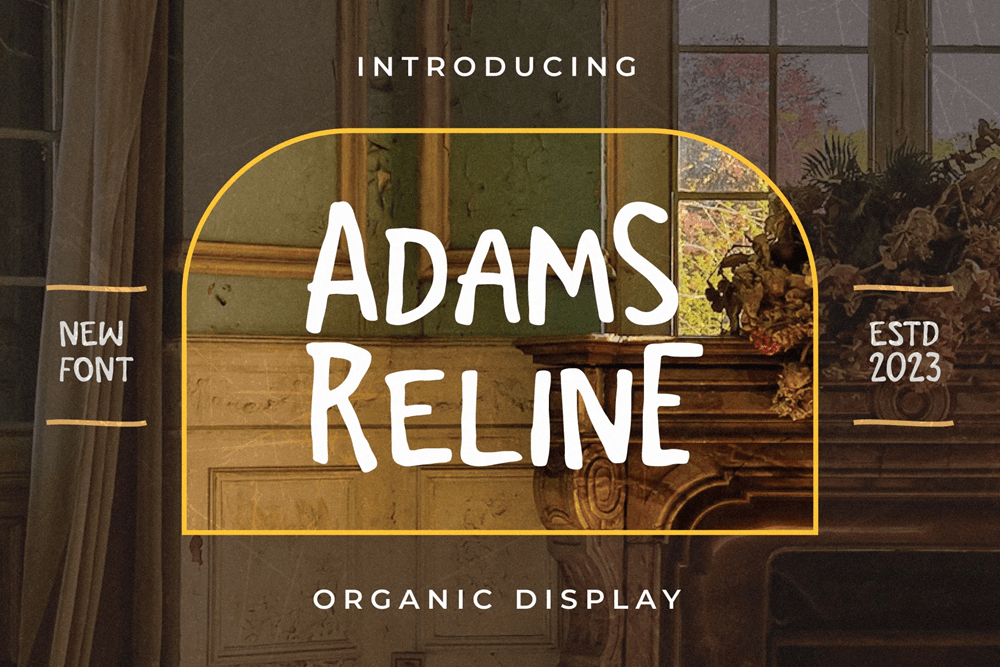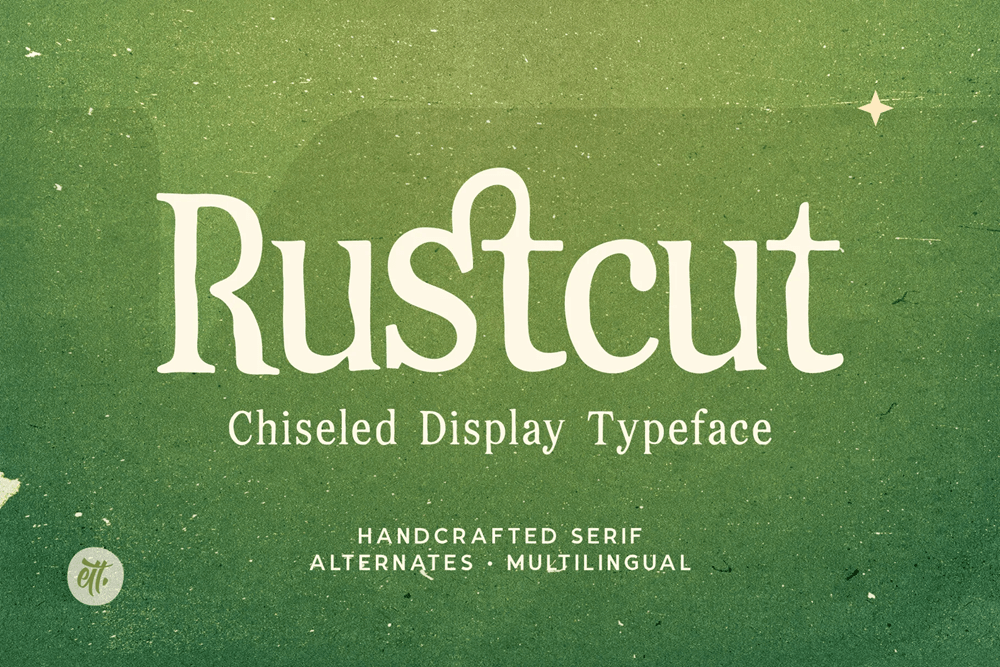
5. Top 30 Clothing Brand Fonts for Modern Apparel Design
Typography significantly influences how a brand is perceived in building brand identity, emotional resonance, and consumer trust. A study by The Cognitive Type Project shows that letter-form design affects cognitive properties such as ease of reading, perceived beauty, and memorability.
Thus, selecting the right clothing brand fonts is more than stylistic: it shapes how consumers interpret your brand across logos, labels, and marketing materials. In this article, you’ll find 30 of the best fonts for clothing brands, grouped into four categories.
Key Takeaway:
• Modern sans-serifs offer clarity and versatility for contemporary apparel brands.
• Luxury-focused high-contrast serifs create an editorial, premium identity.
• Bold display and vintage serif fonts help brands stand out.
30 Clothing Brand Fonts That Bring Your Designs to Life
Selecting the right clothing fonts helps define how your brand communicates. Read on to explore the full list of curated typefaces from Lettermine that can support your branding needs.
Modern Sans Serif (Clean & Minimalist)
If your brand aims for a clean, professional look, modern sans serif fonts are a strong fit. Here are the curated Lettermine selections.
1. Eghari
Eghari delivers bold characters in a simple, quirky form, making it great for standout clothing graphics and youthful labels.
2. Rawclue
With its smooth, approachable shapes, Rawclue supports casual clothing brands needing clear, welcoming labels and simple visual identity.
3. Ez Bekario
The font’s streamlined shapes make Ez-Bekario a strong choice for apparel logos and garment labels that rely on clarity and minimalist appeal.
4. Thunder Line
Bring sleek, minimalist clarity to apparel with Thunder Line, a modern sans serif made for bold, refined looks.
5. Ez Aldridge
Aldridge is a cool, bold, and modern display font perfect for creating standout clothing designs, from t-shirts and sportswear to logos and ads.
6. Adams Reline
With clean, curvy letterforms, Adams Reline brings subtle natural elegance to modern clothing graphics.
7. Desimate Stronger
Desimate Stronger brings a clean, minimalist brush-serif look that adds subtle strength to modern clothing designs.
8. Mingoru
Mingoru is a clean, elegant all-caps sans serif that adds modern minimalist style to clothing branding and apparel visuals.
High-Contrast Serif (Luxury & Fashion Editorial)
Perfect for luxe apparel branding, these high-contrast serifs bring editorial elegance and fashion-forward sophistication to clothing designs.
9. Rustcut
Rustcut delivers a textured, human-crafted serif look ideal for stylish fashion branding and editorial headlines.
10. Gradine
Gradine brings classic elegance and high-end appeal through its refined, high-contrast serif styling.
11. Chamisty Qaligh
With its graceful curves and clean detailing, Chamisty Qaligh elevates fashion-focused clothing designs with a luxe, editorial feel.
12. Regista
Regista brings sharp, elegant serif styling to luxury fashion editorials, perfect for upscale clothing branding.
13. Neomuris
Add a touch of quiet luxury to apparel designs with Neomuris, a modern serif crafted for crisp, editorial elegance.
14. Reveline Detania
Reveline Detania blends classic refinement with a modern edge, ideal for upscale apparel branding and fashion-forward editorial design.
15. Chamisty
With soft strokes and refined details, Chamisty brings a classic, polished feel to high-end fashion layouts and apparel designs.
16. Ez Braney
Offering a crisp, modern serif style, Ez-Braney enhances clothing and fashion designs with effortless luxury.
Also Read: Top Clothes Brands and Their Iconic Logos Defining Style
Vintage-Modern Fonts with a Retro Edge
For brands seeking a font for clothing brand that bring raw energy and statement strength, these bold display picks elevate any streetwear aesthetic.
17. Buhega Chocoo
Buhega Chocoo delivers bold, playful curves that give streetwear clothing designs a lively, statement-making edge.
18. Garata
Energize your clothing brand with Garata, a bold display font built for impact and style.
19. Sunny Mood
Bring fun and energy to apparel branding with Sunny Mood, a chunky, expressive display font.
20. Frozenita
Make your clothing visuals stand out with Frozenita, a bold, handwriting font with edgy, modern flair.
21. Ez Golden Grove
Golden Grove combines wavy elegance with streetwear attitude for impactful, statement-ready clothing designs.
22. Dextor
Dextor delivers experimental, bold typography ideal for streetwear logos, tees, and statement apparel graphics.
Also Read: Best Modern Fonts for Animated Projects: 20 Designer Picks
Vintage / Retro Serif (Heritage, Denim & Classic Apparel)
These fonts bring timeless character and nostalgic charm, perfect for heritage-inspired clothing, denim labels, and classic apparel branding.
23. Regano Qingsta
Regano Qingsta captures retro sophistication for timeless clothing, denim, and heritage apparel graphics.
24. Benstorm Obvious
Benstorm Obvious delivers timeless charm for vintage clothing and heritage-inspired designs.
25. Rimstone Laroe
Elevate classic apparel and heritage garments with Rimstone Laroe, a natural, handwritten font.
26. Dreamy Journals
Dreamy Journals blends casual elegance with a personal touch for timeless heritage clothing.
27. Gesone
Gesone delivers retro elegance for heritage and denim clothing designs.
28. Derstone
Derstone is a bold allcaps display serif that adds timeless elegance to heritage and denim apparel.
29. Cassana Rustin
Cassana Rustin blends elegance and nostalgia, perfect for heritage clothing and vintage-inspired apparel.
30. Ramongs
Ramongs is a vintage serif font that adds timeless elegance to heritage clothing and classic denim apparel.
Also Read: 15 Most Successful Small Business Ideas to Start
Choose Top Clothing Brand Fonts to Elevate Your Apparel Designs
Selecting the best font for clothing logo is crucial for creating a memorable brand identity. The curated list above showcases versatile, stylish, and readable options that work perfectly for logos, apparel labels, and fashion editorial designs.